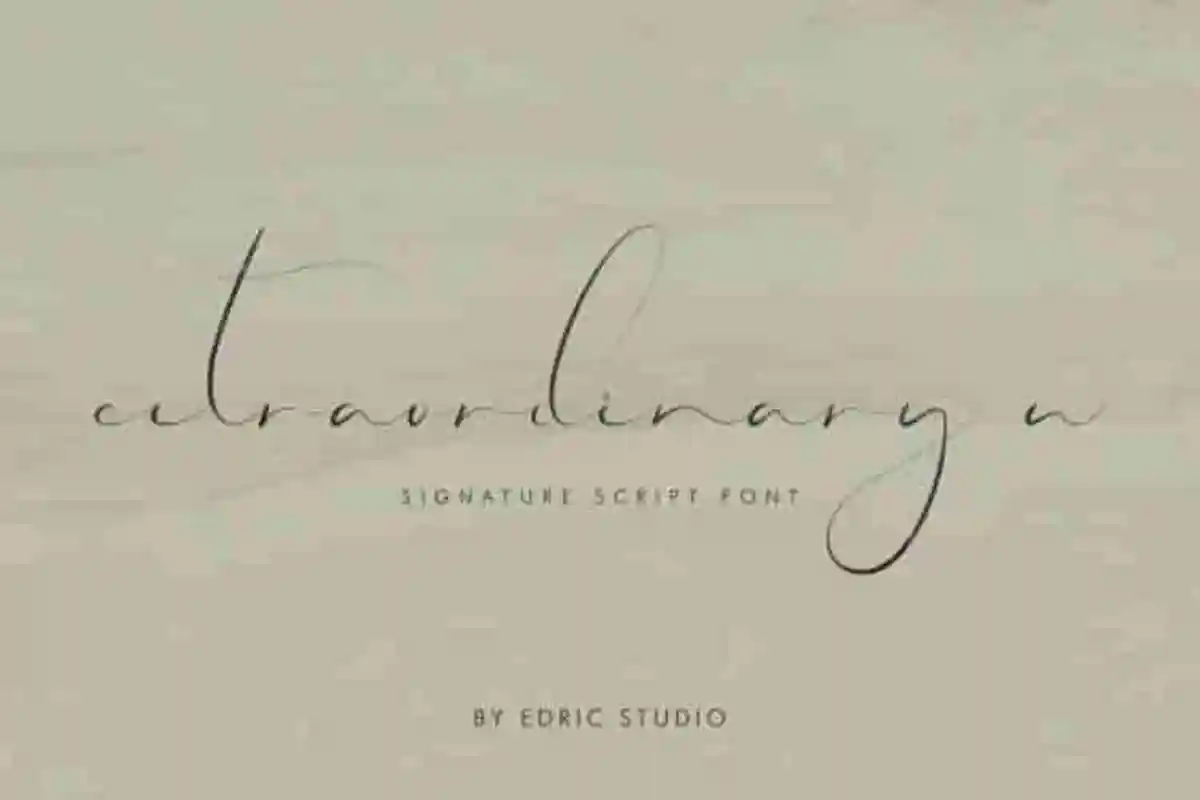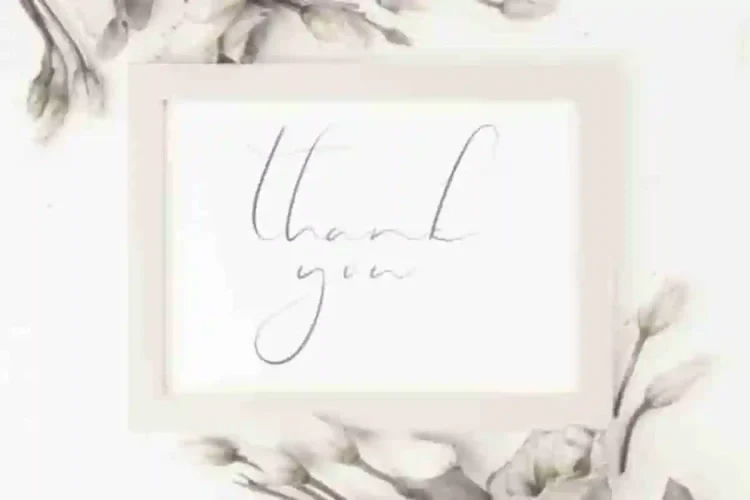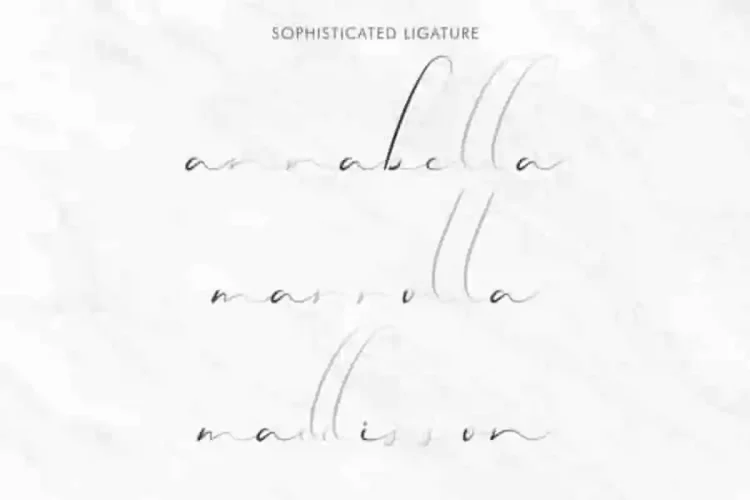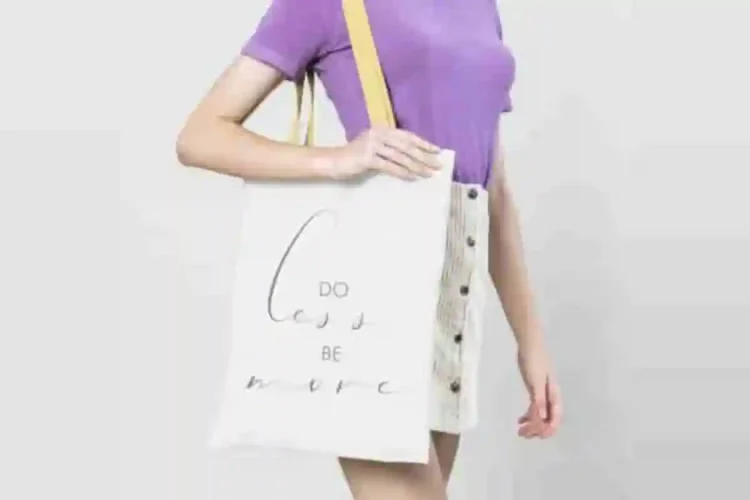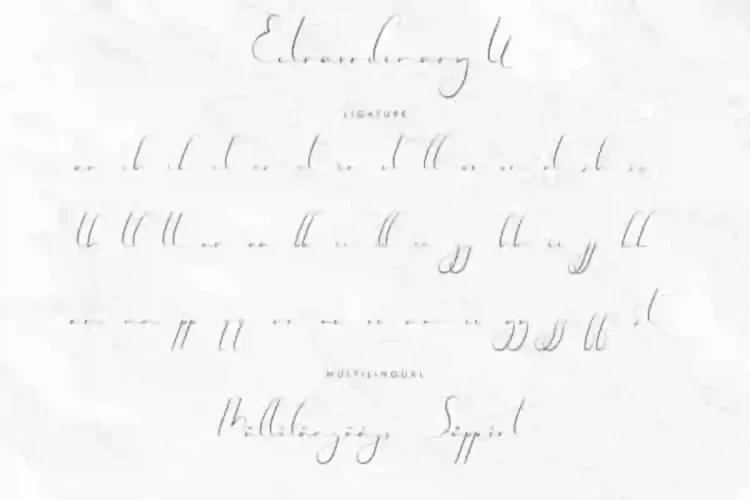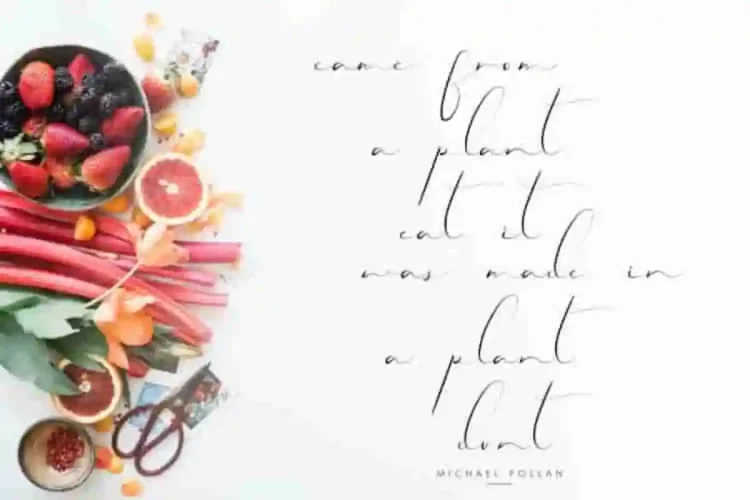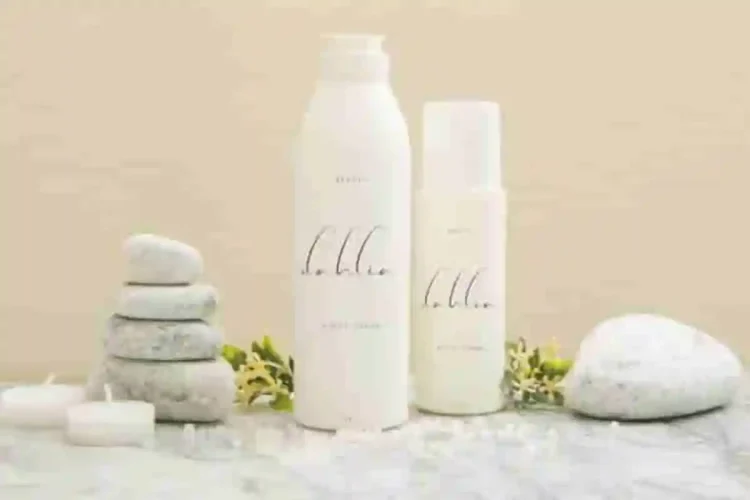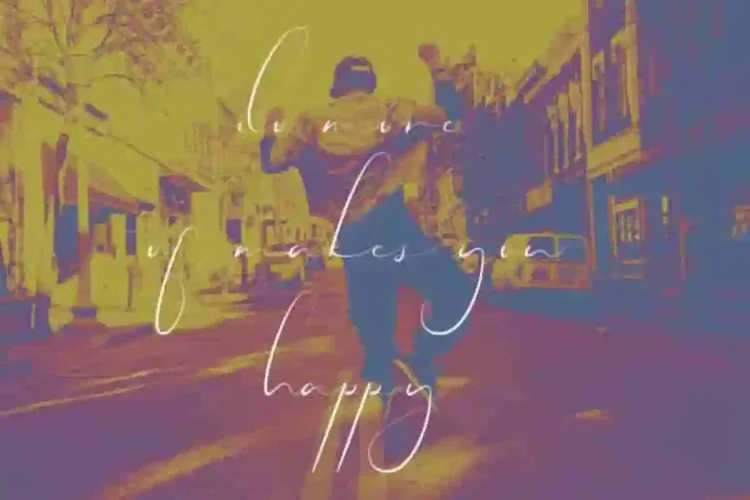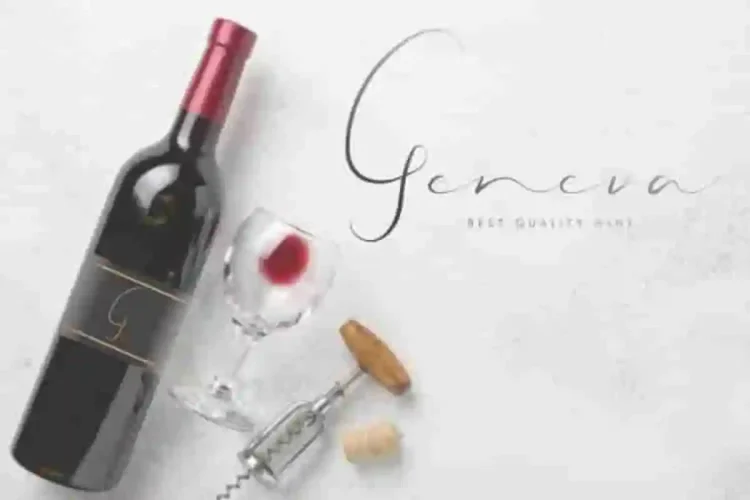
Extraordinary U Calligraphy Font
The newest font from our lovely artist :  Extraordinary U Calligraphy Font
This is a Calligraphy font, handcrafted from our Studio here in, Indonesia. The artists/designers of this beautiful tyeface is Widi and Sarah Suci.
Extraordinary U Calligraphy Font is an exclusive signature script typeface with brush style. This font has a stunning characters set, perfectly managed with well spaced and kerning.
Extraordinary U Calligraphy Font will be great for any projects including : branding, logo, stationery, business card, signage, flyer, brochure etc. Almost all industries will be match for this typeface: wedding, events, real estate, architect, law firm, florist, gardening, makeup artist, travel, hotel, musician etc.